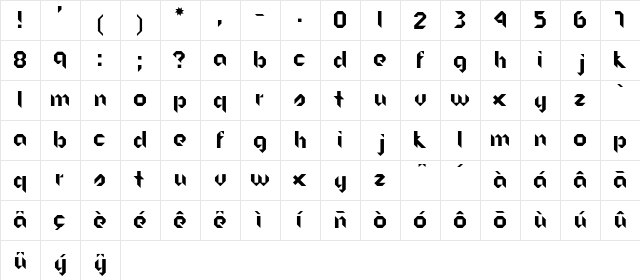
Origram Regular
| Foundry | Nuno Dias |
| Designer | Nuno Dias |
Design Context for Origram Typeface
Origram takes a measured approach to typography — its balanced proportions and neutral character make it a reliable workhorse for both digital and print work.